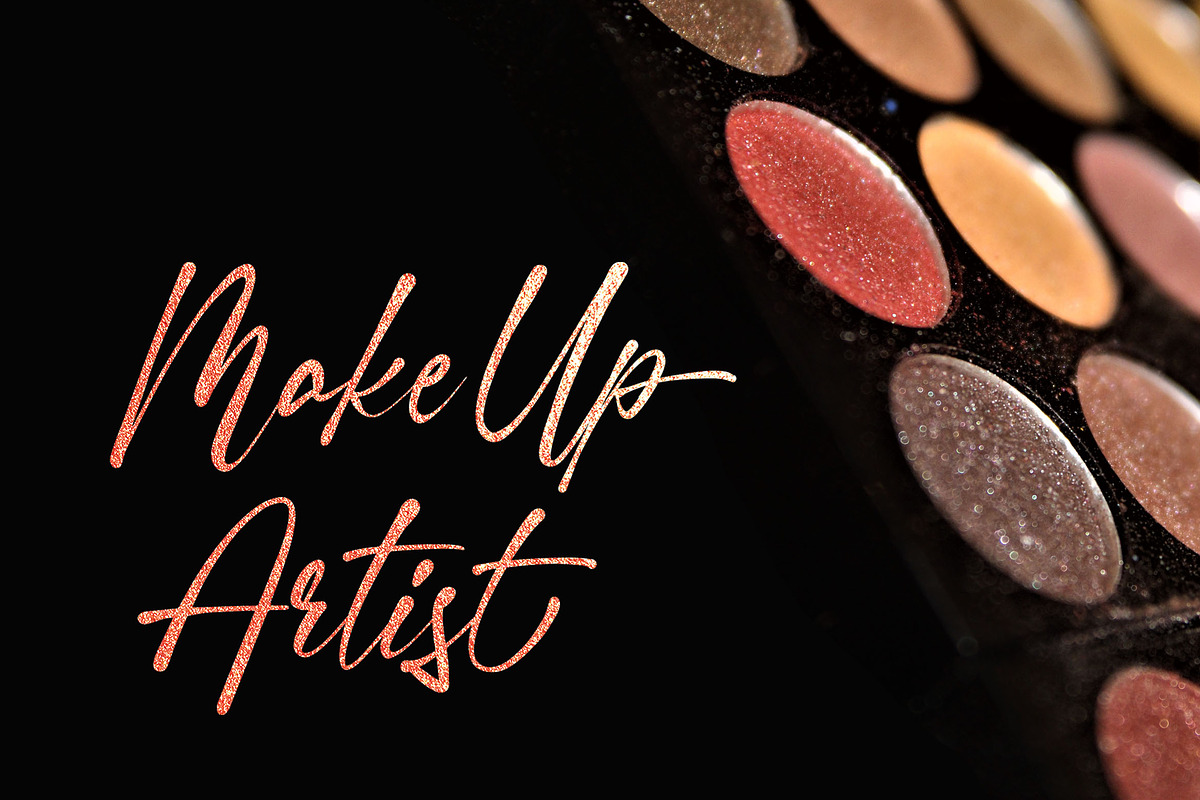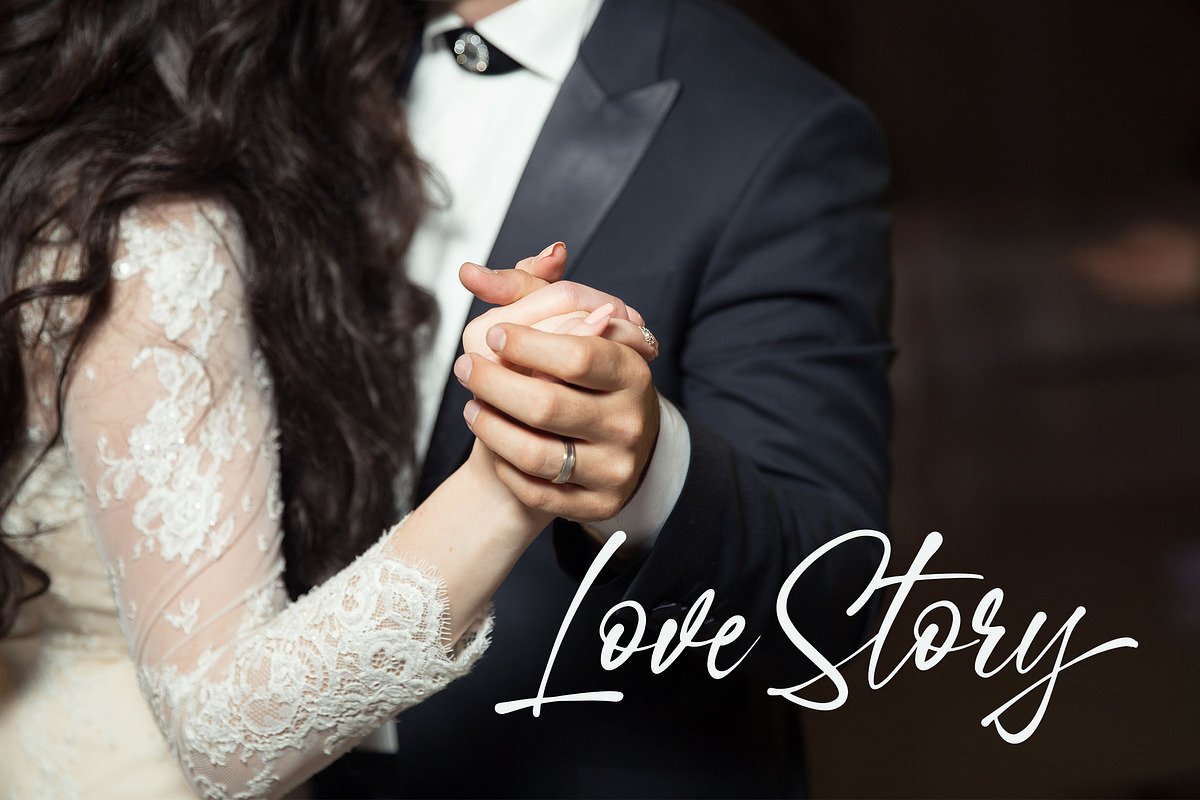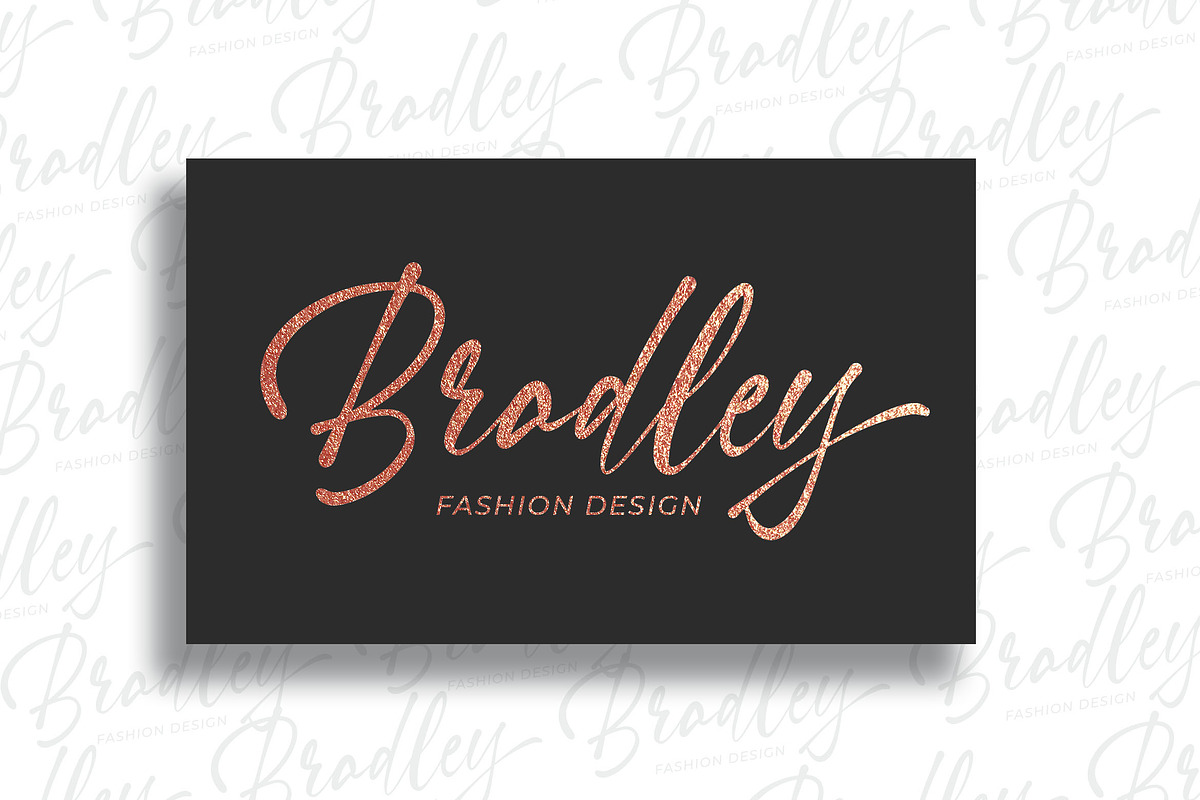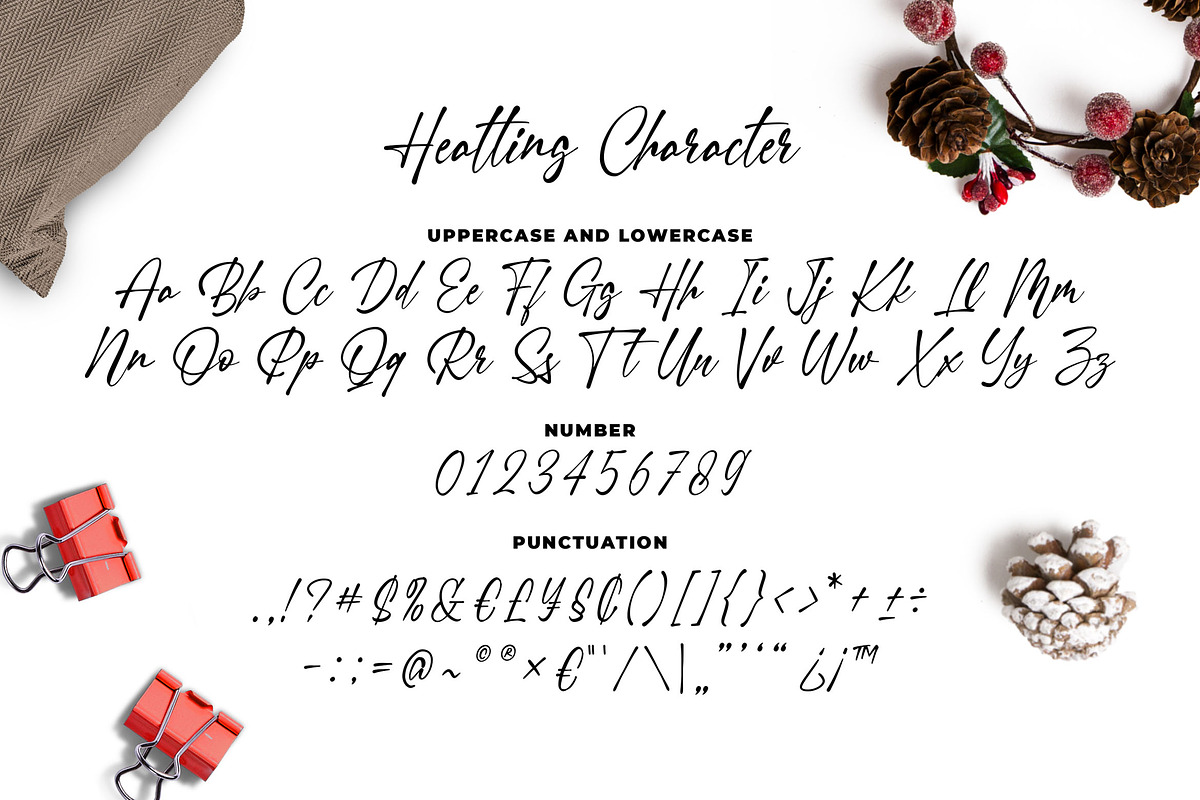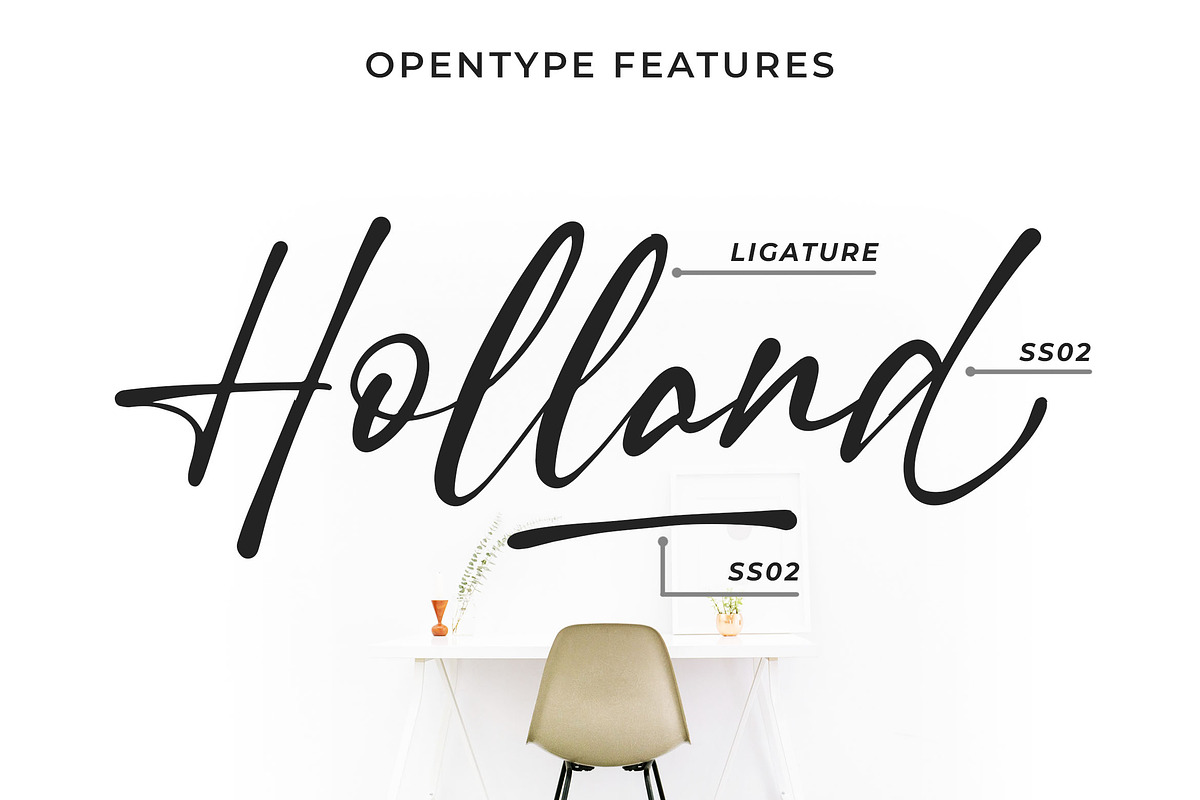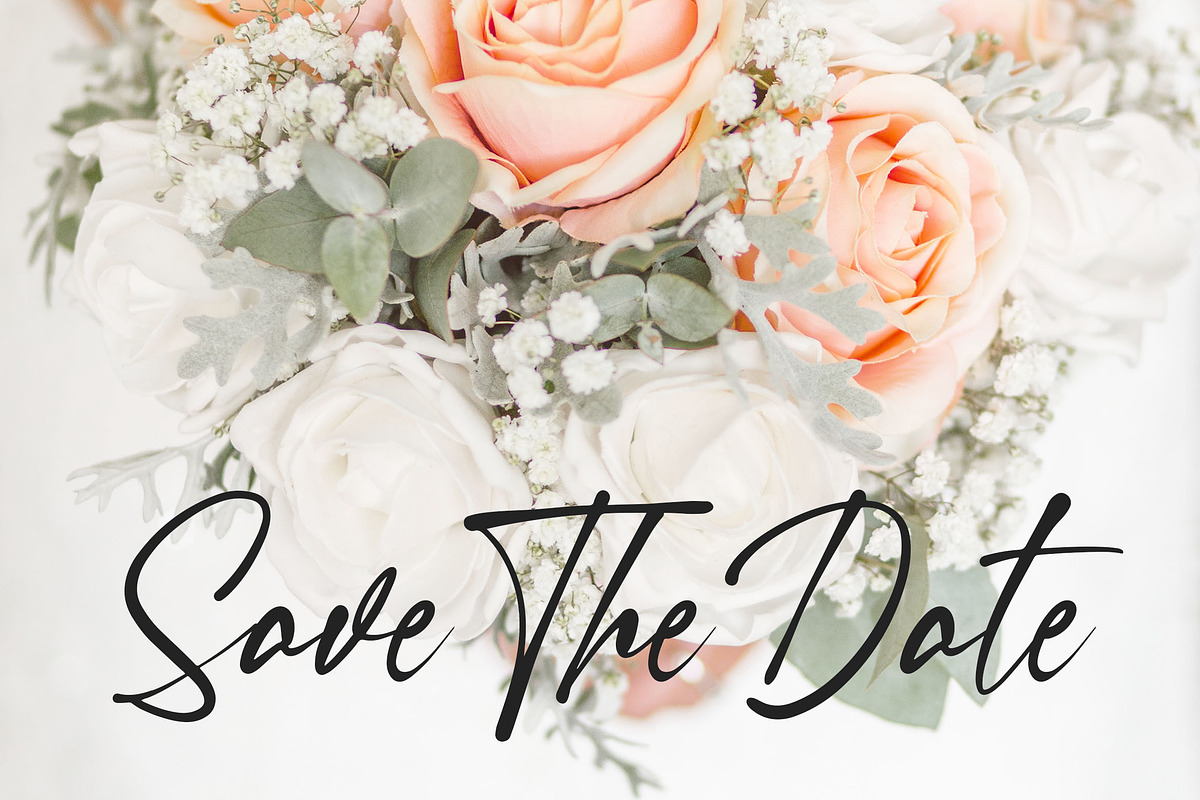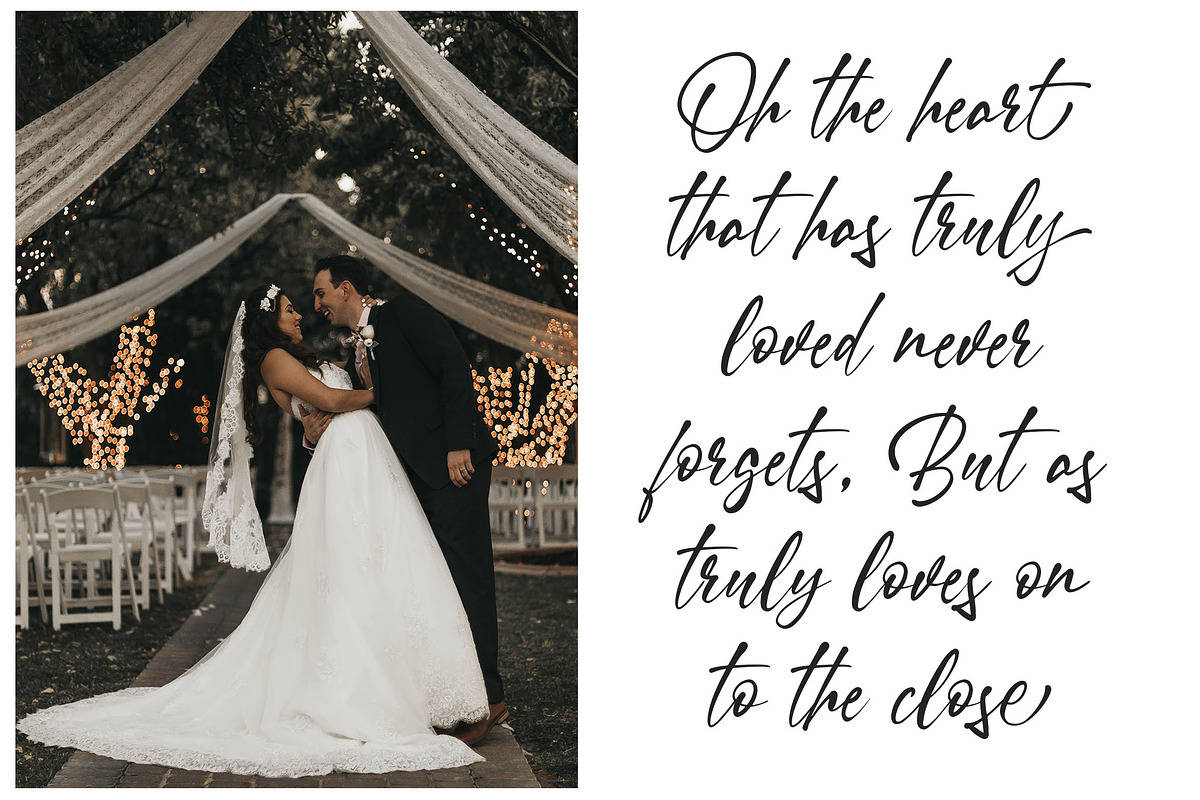
Heatting - Signature Font
Introducing of our new product the name is Heatting Signature Font. Heatting inspired by signature style this font is a fun theme very good for signature, poster, fashion, wedding, branding etc
MULTILINGUAL ACCENT :
ŽžŠŒšŸÀÁÂÃÄÅÆÇÈÉÊËÌÍÎÏÐŁÑÒÓÔÕÖØÙÚÛÜÝßàáâãäåæçèéêëìíîïłñòóôõöøùúûüýÿ
- Number
- Punctuation
- Multilingual
- PUA Encode
- Opentype